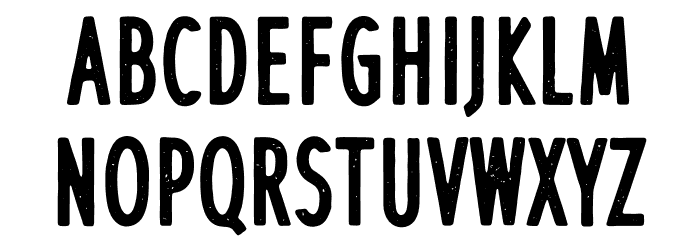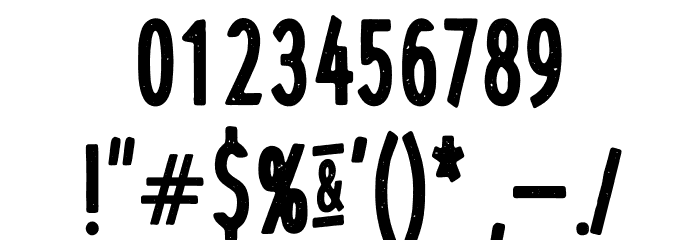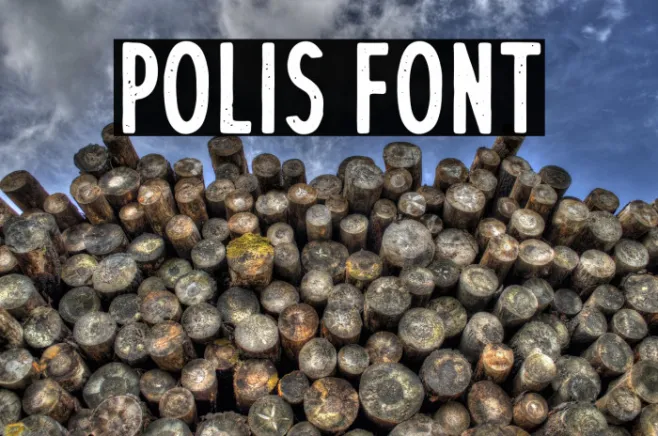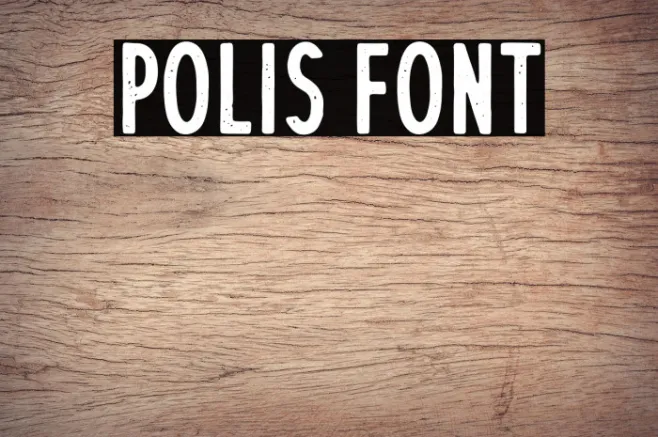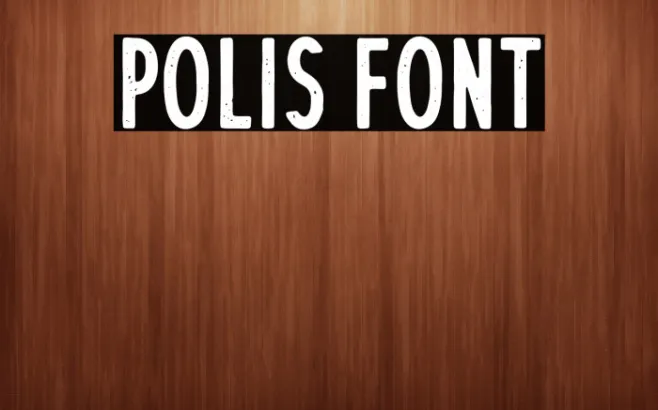
Polis Font
This font features a bold and rugged design with a distressed texture, giving it a vintage and worn appearance. The characters are uniformly bold, with a slightly condensed width that enhances its strong visual impact. The uppercase letters are prominent and assertive, while the lowercase letters maintain the same boldness, ensuring consistency across the typeface. The numbers and special characters are equally bold, with a unique style that complements the overall design. The font's texture adds a tactile quality, making it ideal for projects that require a rustic or industrial feel.
A bold, distressed font with a vintage, rugged appearance.
- Proposed Projects: Ideal for branding, posters, packaging, and any project requiring a vintage or industrial aesthetic.
- Overall Style: Vintage